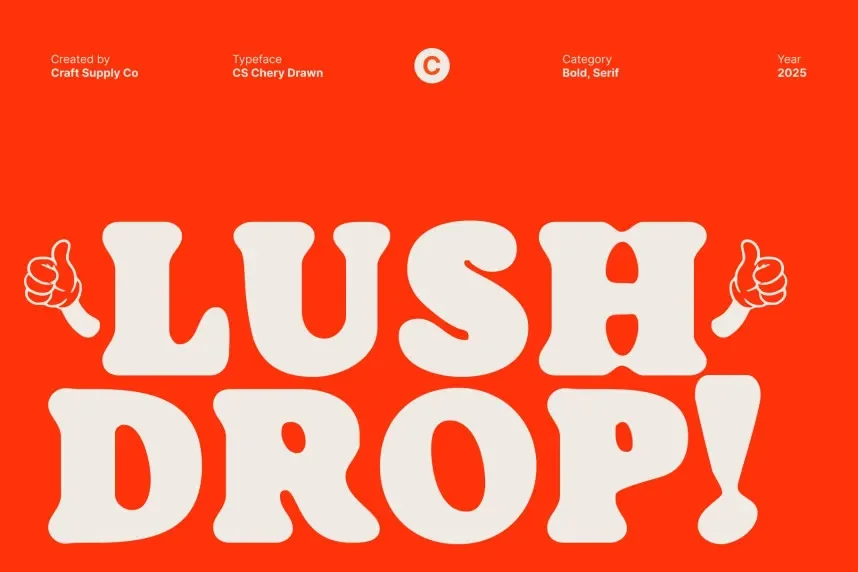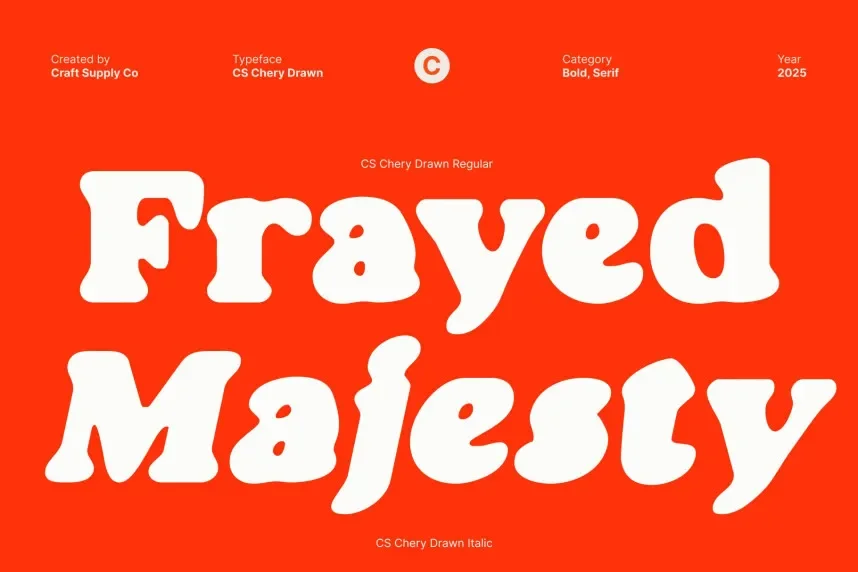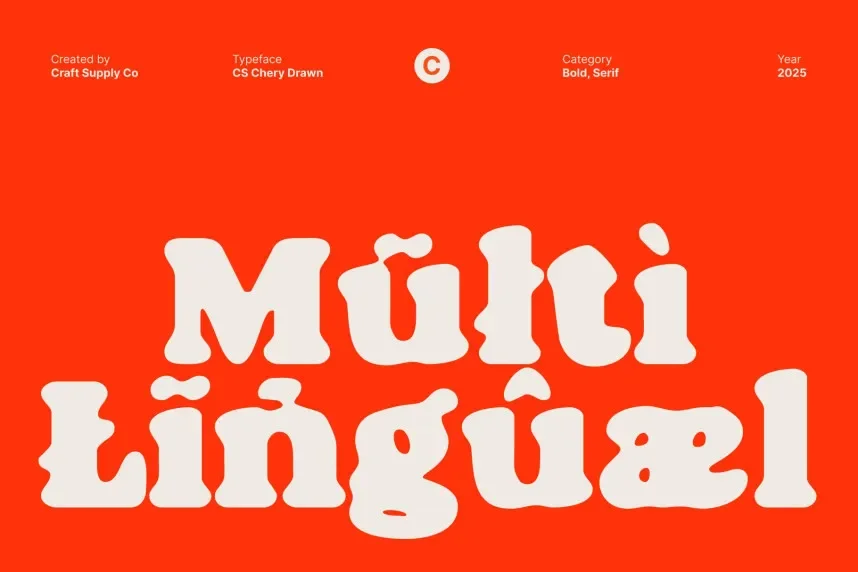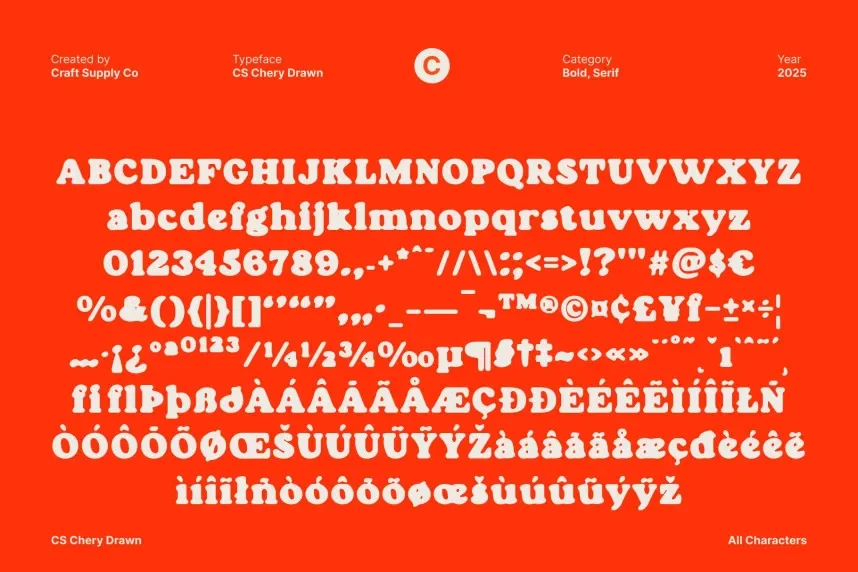
CS Chery Drawn Font is a script-based typeface with hand-drawn, fluid letterforms. It combines natural strokes with elegant curves, making it perfect for creating a personal touch in designs like invitations, branding, and logos. The font’s organic flow gives it a unique, artistic appeal.